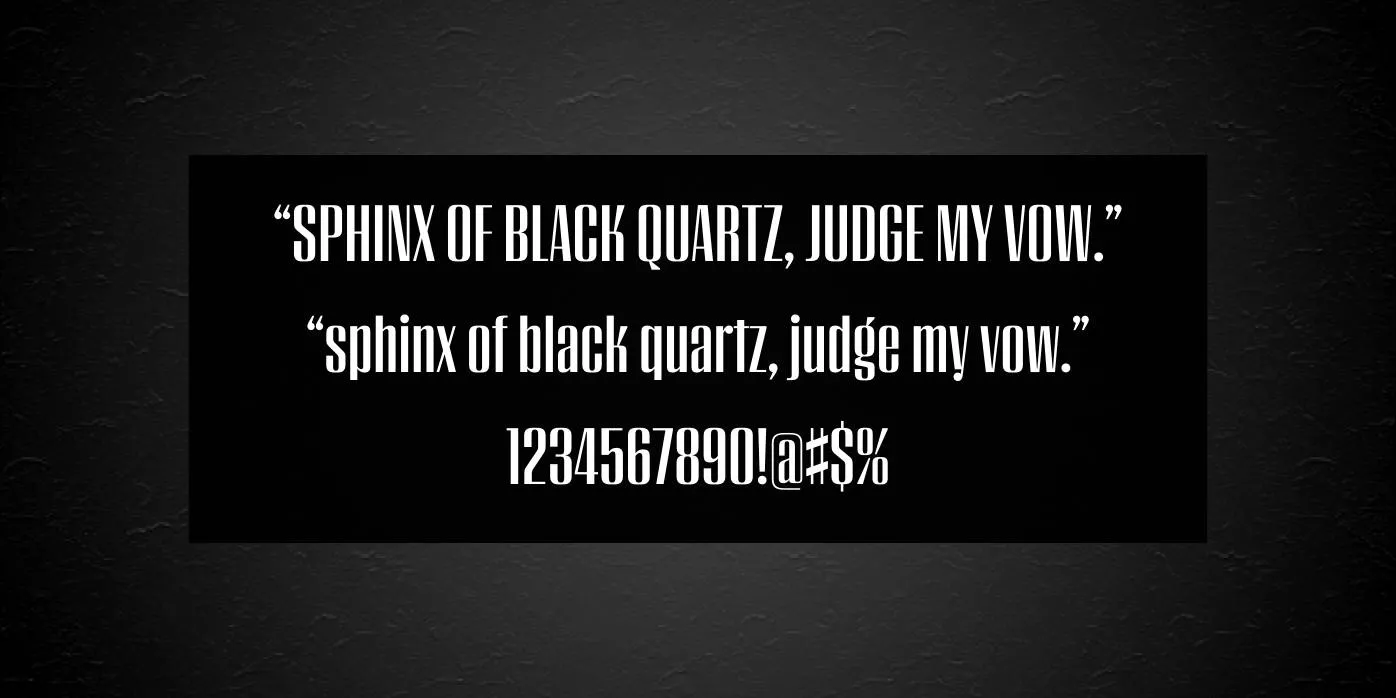
Peristyle Font
Today, we present a stylish font known as Peristyle Font. This stunning typeface was designed by  Hoefler & Co. It belongs to the sans serif family. It comes in both regular and bold weights.
Each weight includes 12 different styles. This gives you a total of 24 different styles to work with. This sans serif typeface has a perfect blend of vintage and modern touch. The designer took the inspiration for this font from the classic grotesque typefaces.
You will notice certain elements from these early fonts in Peristyle as well. It is not included in google font and it is specified for the CSS and SVG. You can also use the microsoft yahei font which is closest to this font family. The overall look of Peristyle is quite clean and minimal.
This makes it a great choice for both display and text purposes. You can use it for headlines, branding, logos, posters, and more. You can also utilize the generator tool for different designs.